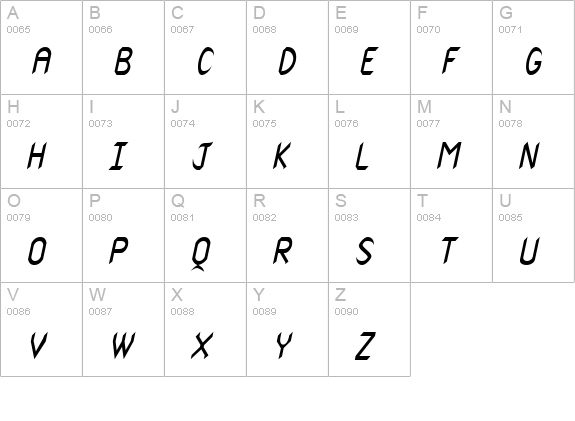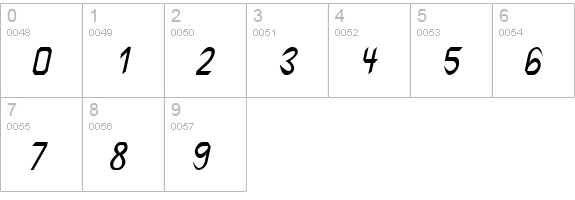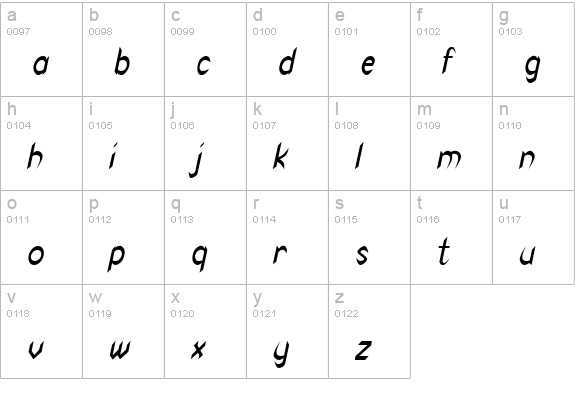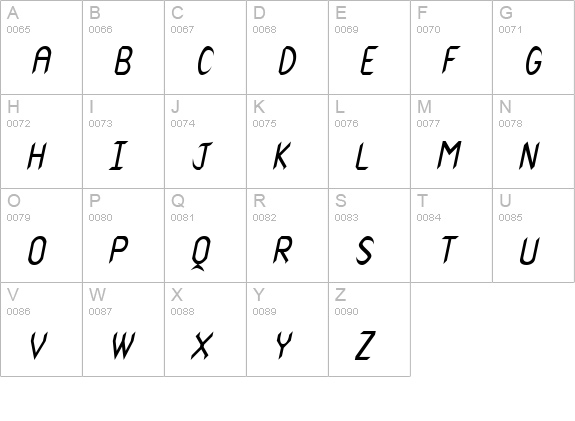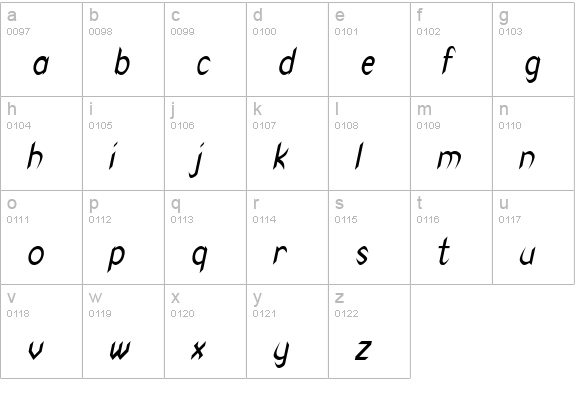
Spike-Condensed Italic is a distinctive, condensed-width, italic variant in the Spike typeface family \xE2\x80\x94 well suited to design and typography projects.
Introducing Spike-Condensed Italic, a sleek and stylish font that exudes elegance and sophistication. With its condensed form and italicized slant, this font adds a touch of flair to any design project. Its slender and graceful letterforms create a sense of movement and dynamism, making it perfect for attention-grabbing headlines, fashion editorials, or modern branding. Spike-Condensed Italic is the epitome of versatility, seamlessly blending into both digital and print mediums. Whether you're designing a website, crafting a logo, or creating stunning advertisements, this font will effortlessly enhance your visual compositions. Its condensed nature allows for efficient use of space, making it ideal for designs that require a lot of text without compromising on elegance. One of the most attractive aspects of Spike-Condensed Italic is that it is available for free download at FontsMarket.com. This means that designers, creatives, and enthusiasts alike can easily access and incorporate this font into their projects without any financial constraints. The freedom to use this font without limitations empowers users to explore their creativity and bring their visions to life. With its clean and legible letterforms, Spike-Condensed Italic ensures optimal readability at any size or resolution. Whether it's displayed on a billboard or a mobile screen, this font remains crisp and clear, guaranteeing a seamless user experience. Its versatility extends to multiple languages, making it suitable for global applications. In summary, Spike-Condensed Italic is a must-have font for anyone seeking to elevate their designs with a touch of sophistication. Its sleek and dynamic aesthetic, combined with its free availability for download at FontsMarket.com, makes it an invaluable asset in any designer's toolkit. Embrace the freedom to create and explore the endless possibilities that Spike-Condensed Italic offers.